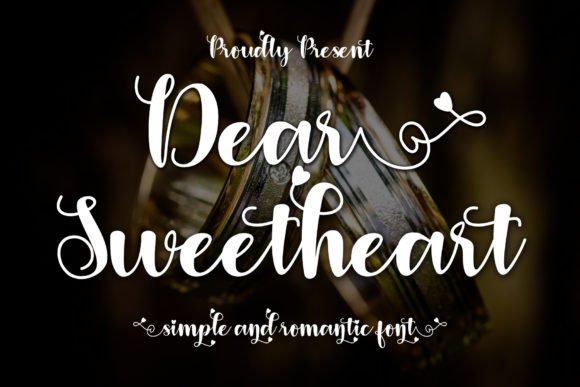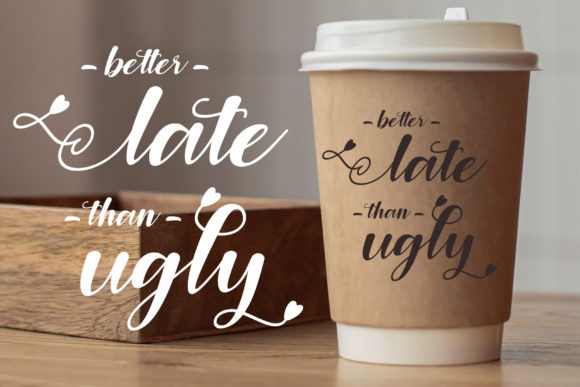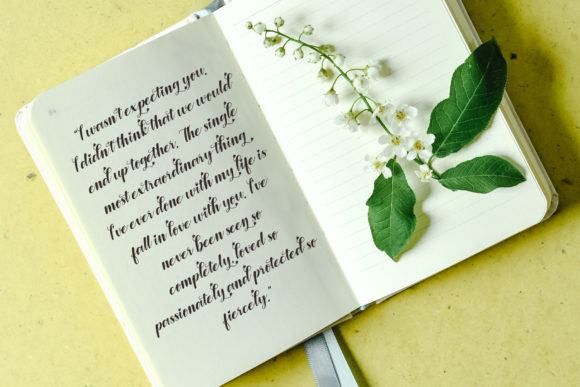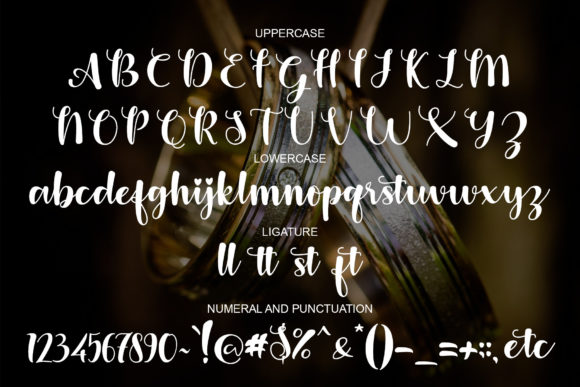
The Perfect Font for Your Next Love Story
Have you ever found yourself pouring your heart out onto the page, trying to capture the essence of a special moment? Whether it’s a wedding invitation, a love letter, or a heartfelt birthday message, there’s something magical about putting your feelings into words. For designers and creatives, this moment is especially precious – and that’s where the Dear Sweetheart Font comes in.
This romantic and sweet script font is designed to add a touch of luxury to any design project. With characters that dance along the baseline, it’s the perfect way to express your love and affection. And with its PUA encoding, you can access all of the amazing glyphs and ligatures with ease, making it a valuable tool for designers who want to add a little extra something special to their work.
Dear Sweetheart Font Key Features
- Font Family: Dear Sweetheart Font is a handwritten, script font family designed for various typography needs.
- Character Set: Includes a wide range of characters, including uppercase and lowercase letters, numbers, and punctuation marks.
- Unique Characteristics: Features a flowing, handwritten style with subtle variations in letterforms, making it suitable for creative and personal projects.
Designer Review: Dear Sweetheart Font
Overall, I found the Dear Sweetheart Font to be a unique and charming addition to any design project. It’s perfect for creating a whimsical and playful atmosphere, especially in digital media such as social media graphics and mobile apps.
Here are some things that work well: ✨ The font’s handwritten feel gives it a personal touch, making it ideal for creating a sense of warmth and approachability. ✨ The font’s versatility allows it to be used in a wide range of contexts, from children’s books to advertising campaigns. ✨ The font’s high-quality rasterization ensures smooth text rendering, even at smaller font sizes.
However, there are some limitations to consider: ⚠️ The font may not be suitable for formal or professional contexts, as its informal feel may come across as unpolished. ⚠️ The font’s complexity can make it difficult to use in certain design software, particularly those with limited font support.
In conclusion, the Dear Sweetheart Font is a solid choice for designers looking to add a touch of whimsy to their projects. While it may have some limitations, its unique character and versatility make it a valuable addition to any design toolkit.
- Perfect for digital media, such as social media graphics and mobile apps
- Unique handwritten feel creates a personal touch
- High-quality rasterization ensures smooth text rendering
- May not be suitable for formal or professional contexts
- Can be complex to use in certain design software
Practical Application Guide: Dear Sweetheart Font
Tip: Use the Dear Sweetheart font to create a unique and romantic invitation design in Canva.
Tip: Use the Dear Sweetheart font to create a beautiful and elegant title for your design in Adobe Photoshop or Illustrator.
Tip: Use the Dear Sweetheart font to create a unique and eye-catching title slide in PowerPoint or a romantic letter in Word.
The Dear Sweetheart font is perfect for:
- Love letters and romantic cards.
- Birthday and anniversary gifts.
- Any design project that requires a touch of romance and elegance.
Alternatives to Dear Sweetheart Font
Copperplate is a classic calligraphy font that is often used for formal invitations and wedding stationery. It features elegant, flowing lines and a sense of sophistication. When to use: Formal events, weddings, and special occasions. Comparison: Copperplate is more formal and elegant than Dear Sweetheart Font, with a more refined and polished look.
Great Vibes is a modern script font that is perfect for adding a touch of whimsy and personality to your designs. It features a relaxed, handwritten feel and is ideal for creative projects. When to use: Casual events, social media graphics, and branding materials. Comparison: Great Vibes is more playful and casual than Dear Sweetheart Font, with a more relaxed and informal feel.